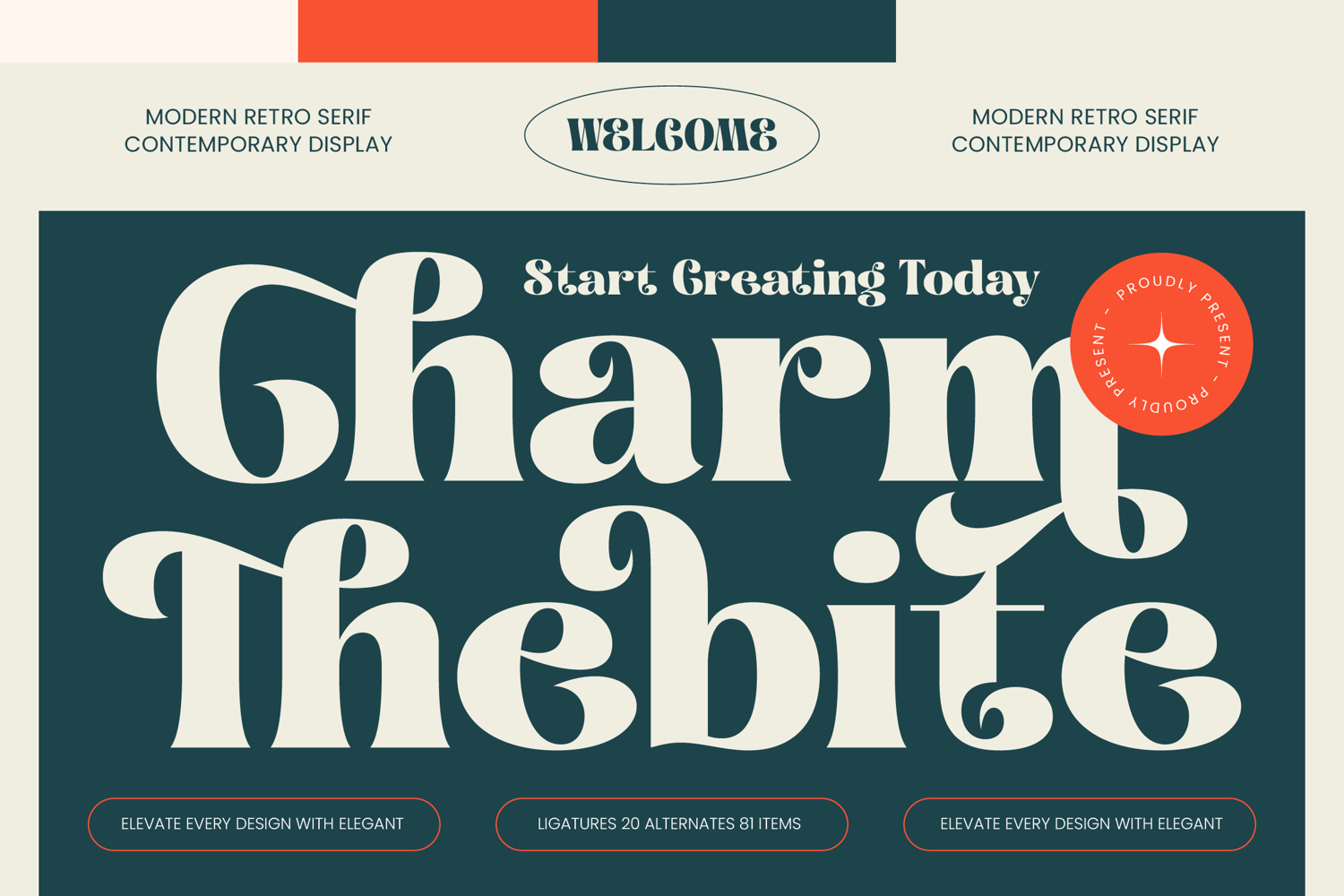
Charm Thebite - Modern Retro Serif
Redefine visual storytelling with the striking elegance of Charm Thebite - Modern Retro Serif. This typeface masterfully bridges the gap between vintage-inspired nostalgia and contemporary minimalism, offering a high-contrast design that commands immediate attention. Its fluid, organic curves and bold serif structures make it an essential tool for designers seeking to infuse their work with a luxurious and timeless feel.
Expand your creative reach with a toolkit designed for the modern world. With its extensive multilingual support, Charm Thebite - Modern Retro Serif adapts seamlessly across global markets, making it incredibly versatile for international projects. Featuring over 81 unique alternates and 20 sophisticated ligatures, this font allows for a bespoke typographic experience that maintains a consistent brand identity across various languages and platforms.
Perfect your aesthetic presentation across a diverse range of premium applications. Whether you are crafting high-end luxury branding, developing innovative packaging, or curating fashion editorial layouts, Charm Thebite - Modern Retro Serif is the ideal choice for projects that require a distinctive personality. It is perfectly suited for striking logo designs, social media graphics, and headline typography that needs to stand out with unparalleled sophistication..3